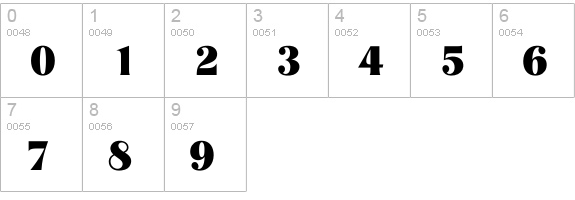
Nashvi Bold Font Details
Nashvi Bold is a strong, high-contrast variant in the Nashvi typeface family \xE2\x80\x94 well suited to headlines, attention-grabbing titles, and strong calls-to-action.
Nashvi Bold font is a striking and versatile typeface that exudes confidence and modernity. With its bold and impactful design, Nashvi Bold is perfect for creating eye-catching headlines, titles, and logos that demand attention. The clean and sleek lines of this font make it ideal for both digital and print designs, ensuring readability and impact across various mediums. Moreover, Nashvi Bold font is available for free download at FontsMarket.com, making it accessible for designers and creatives looking to elevate their projects without breaking the bank. Whether you're working on branding, packaging, posters, or any other design project, Nashvi Bold font is sure to make a bold statement and leave a lasting impression on your audience. Download Nashvi Bold today and unleash your creativity with this stunning and versatile typeface.